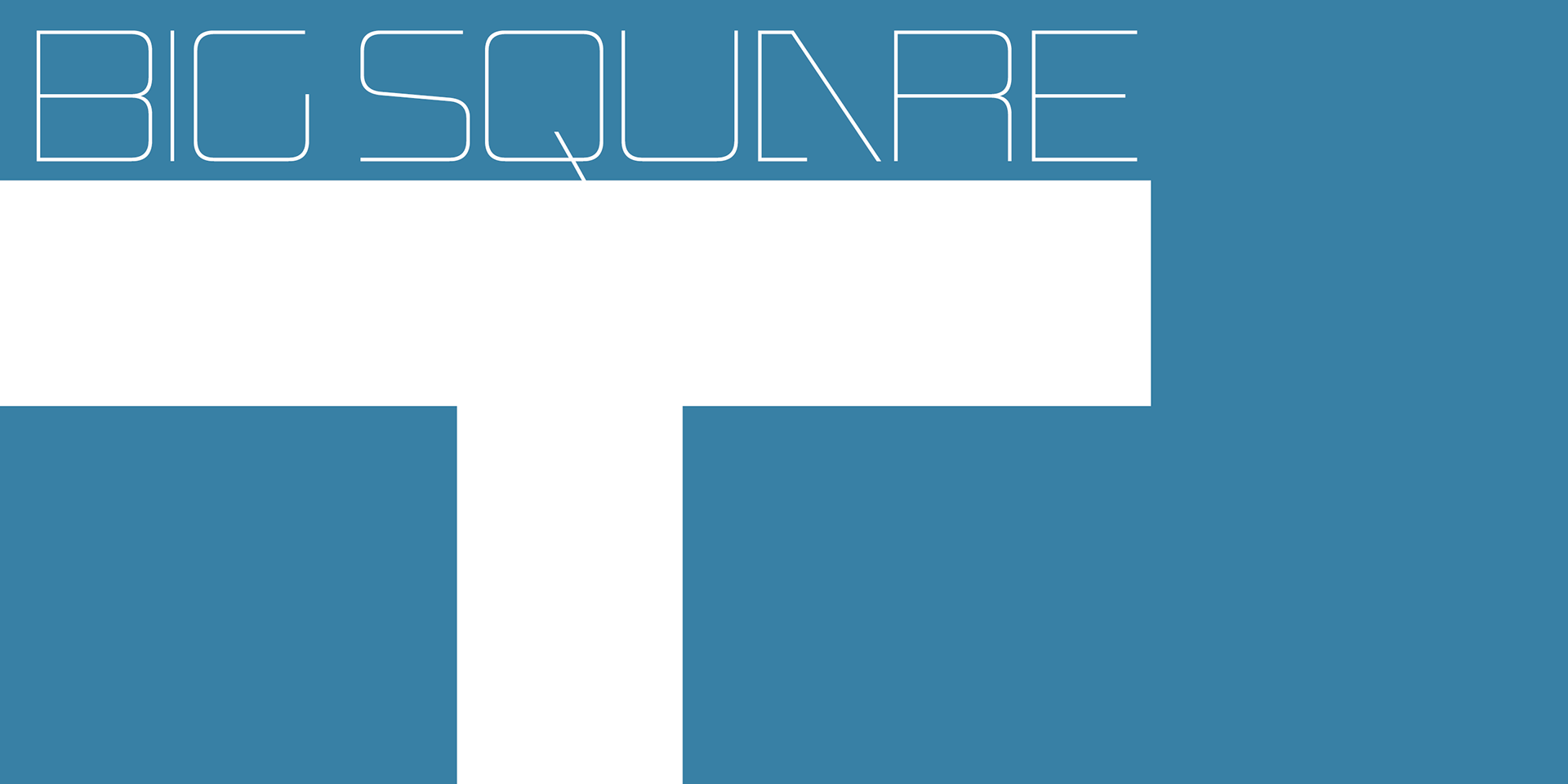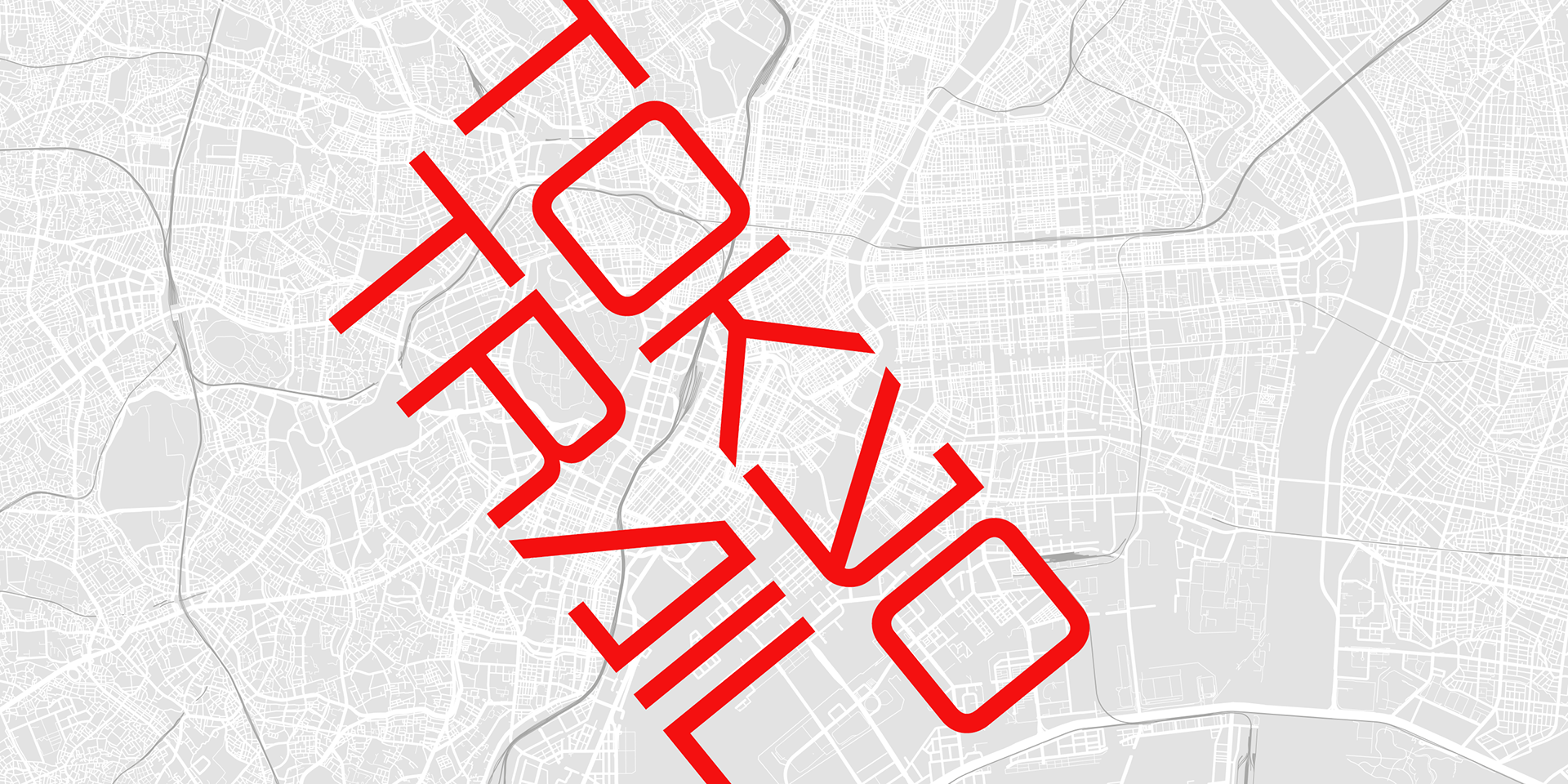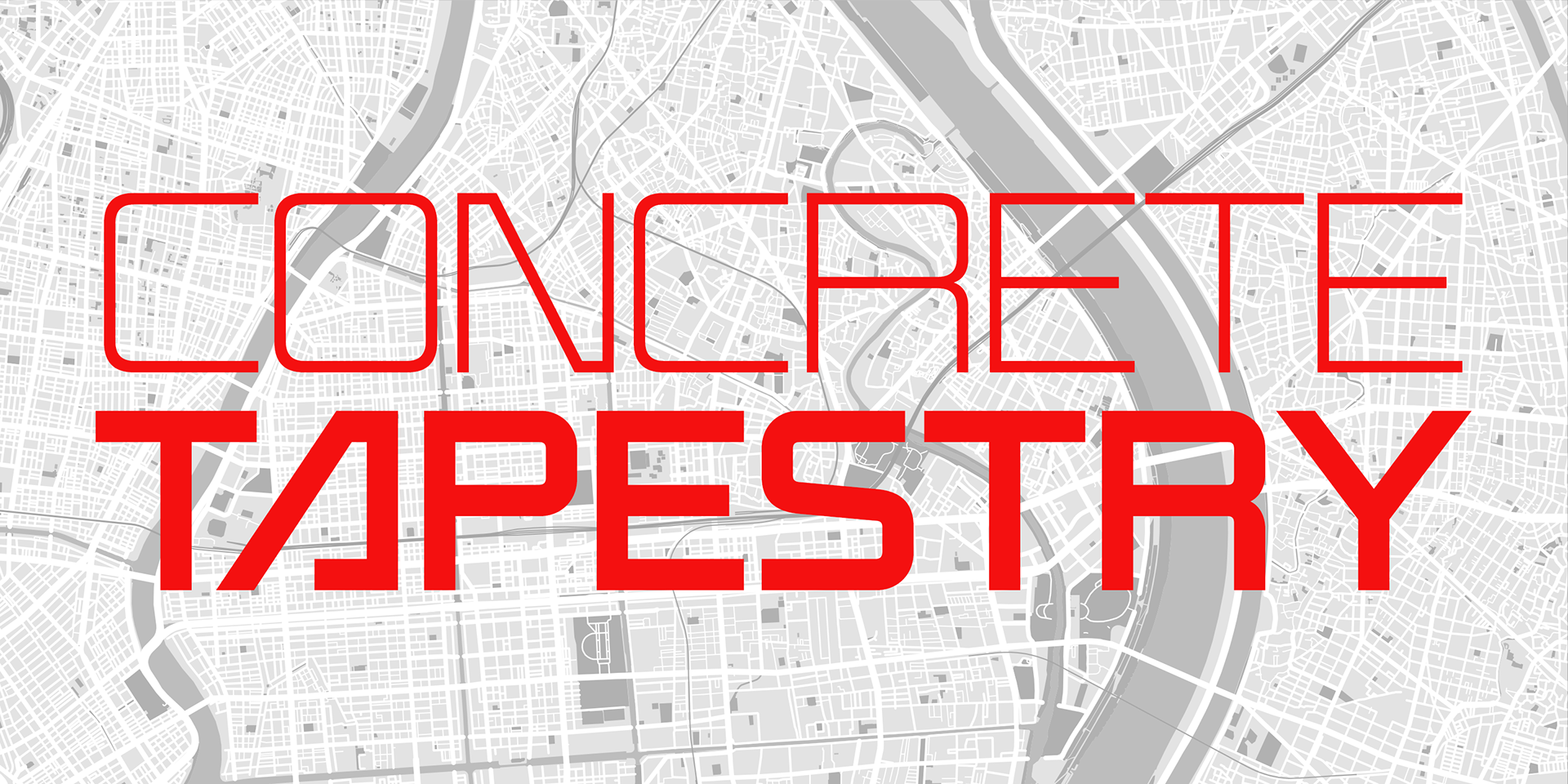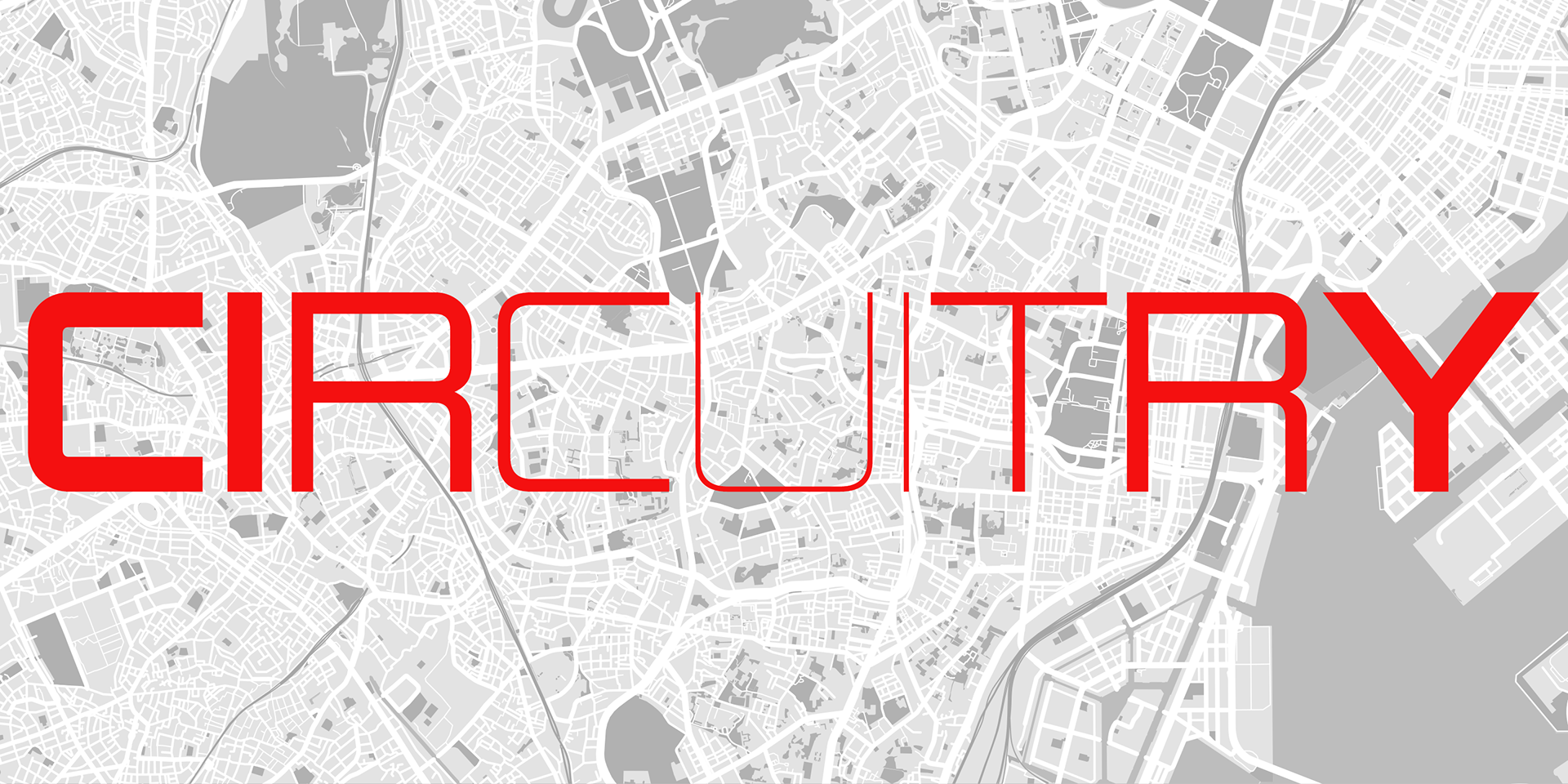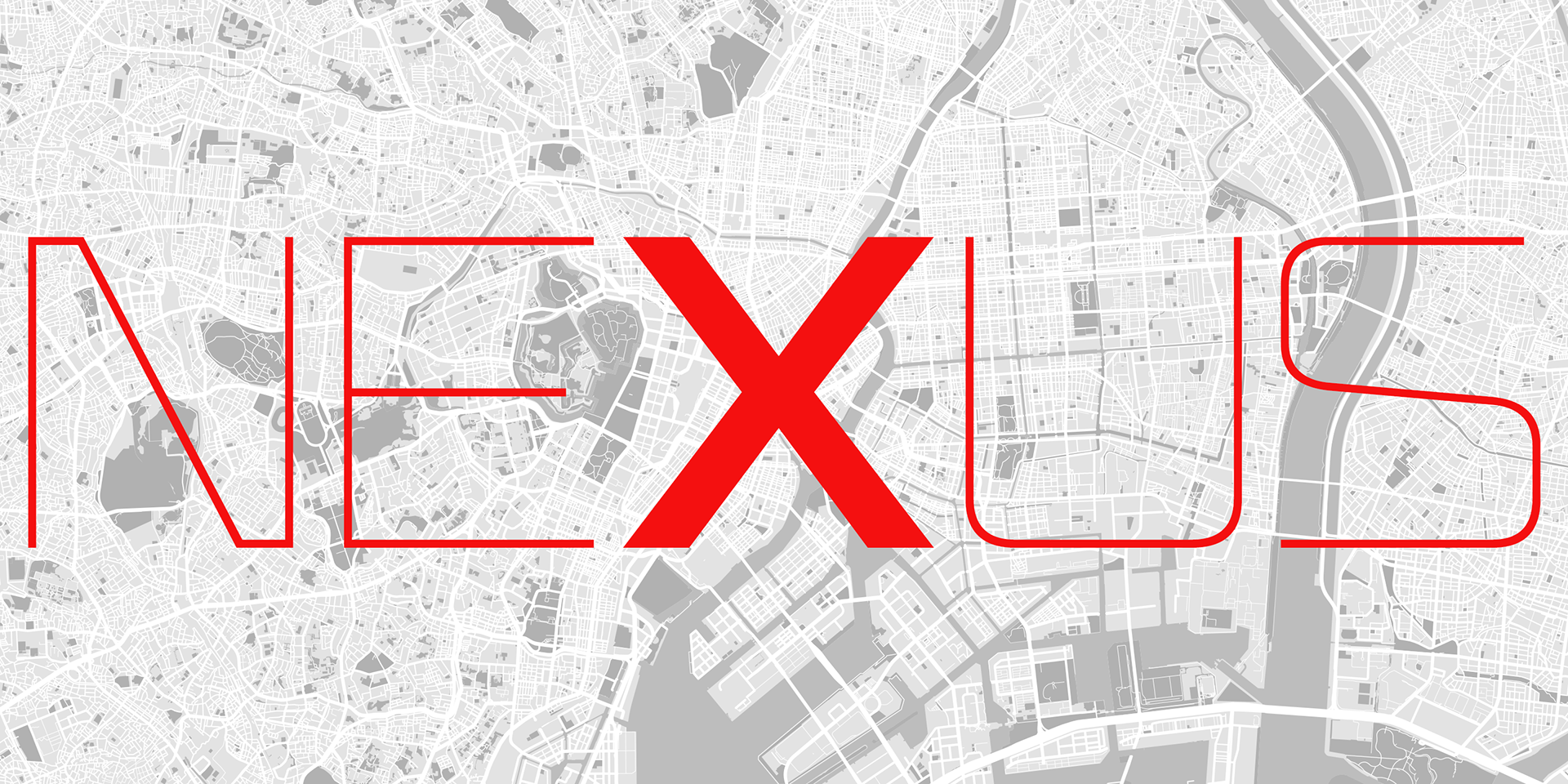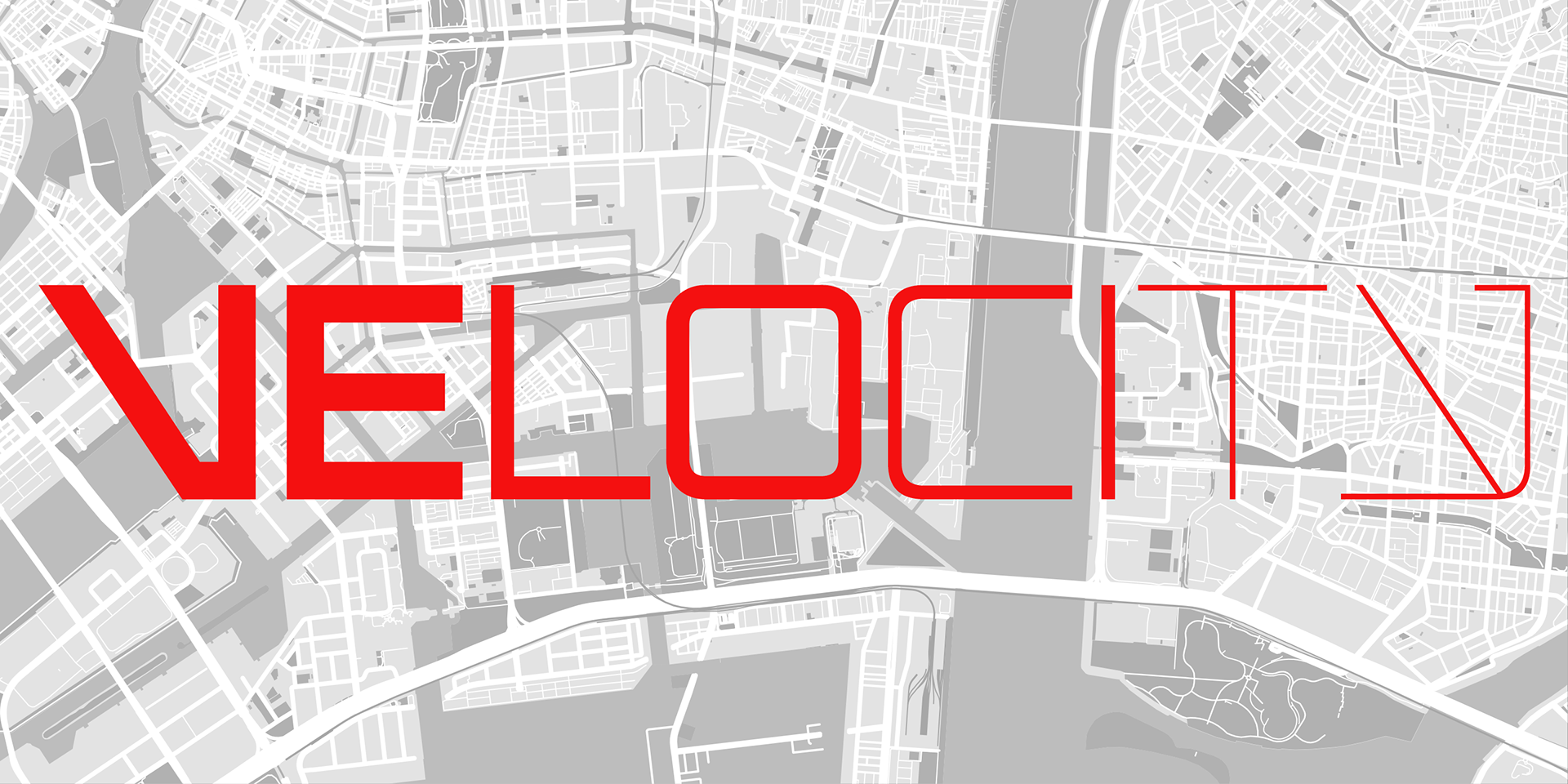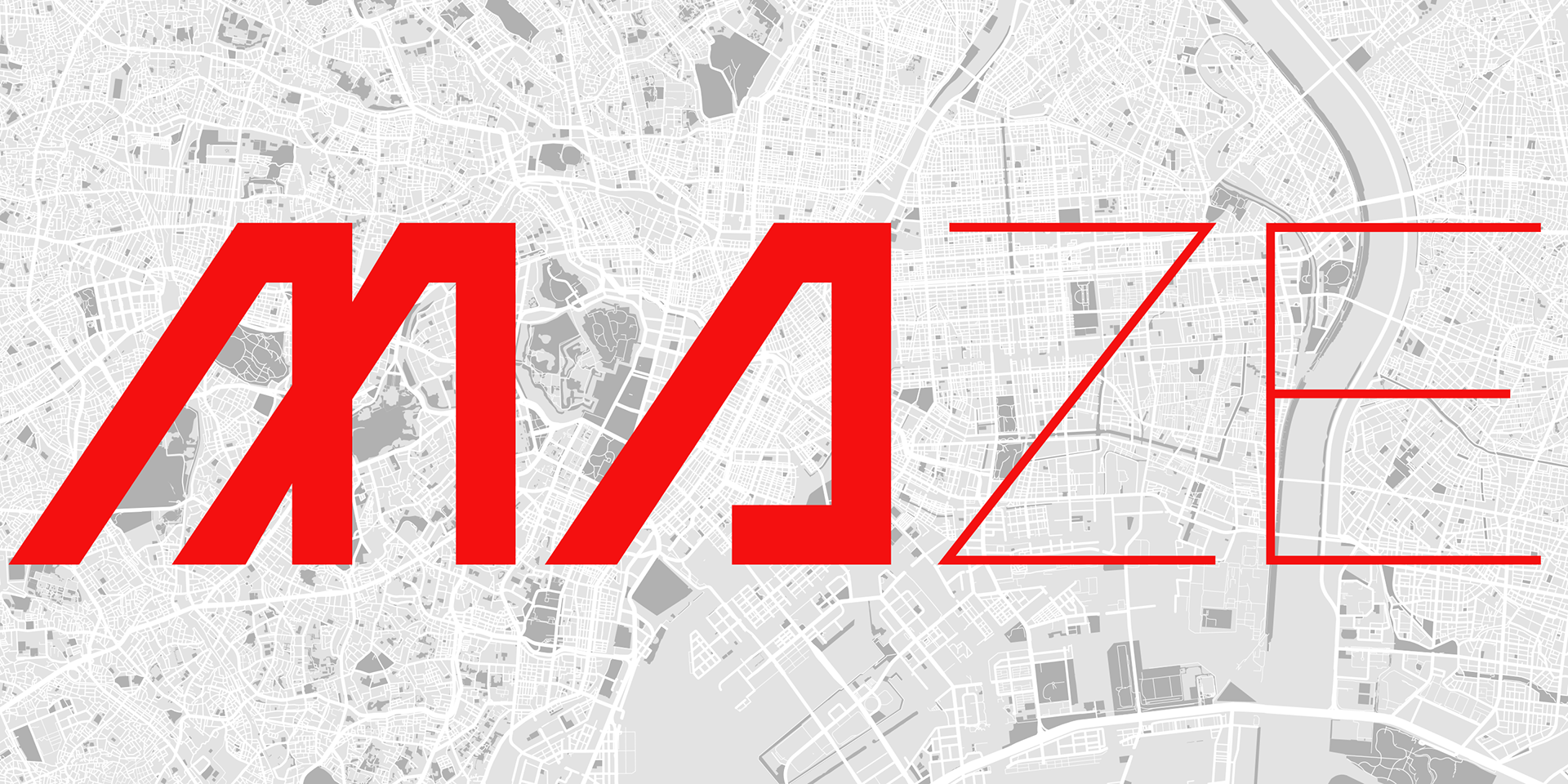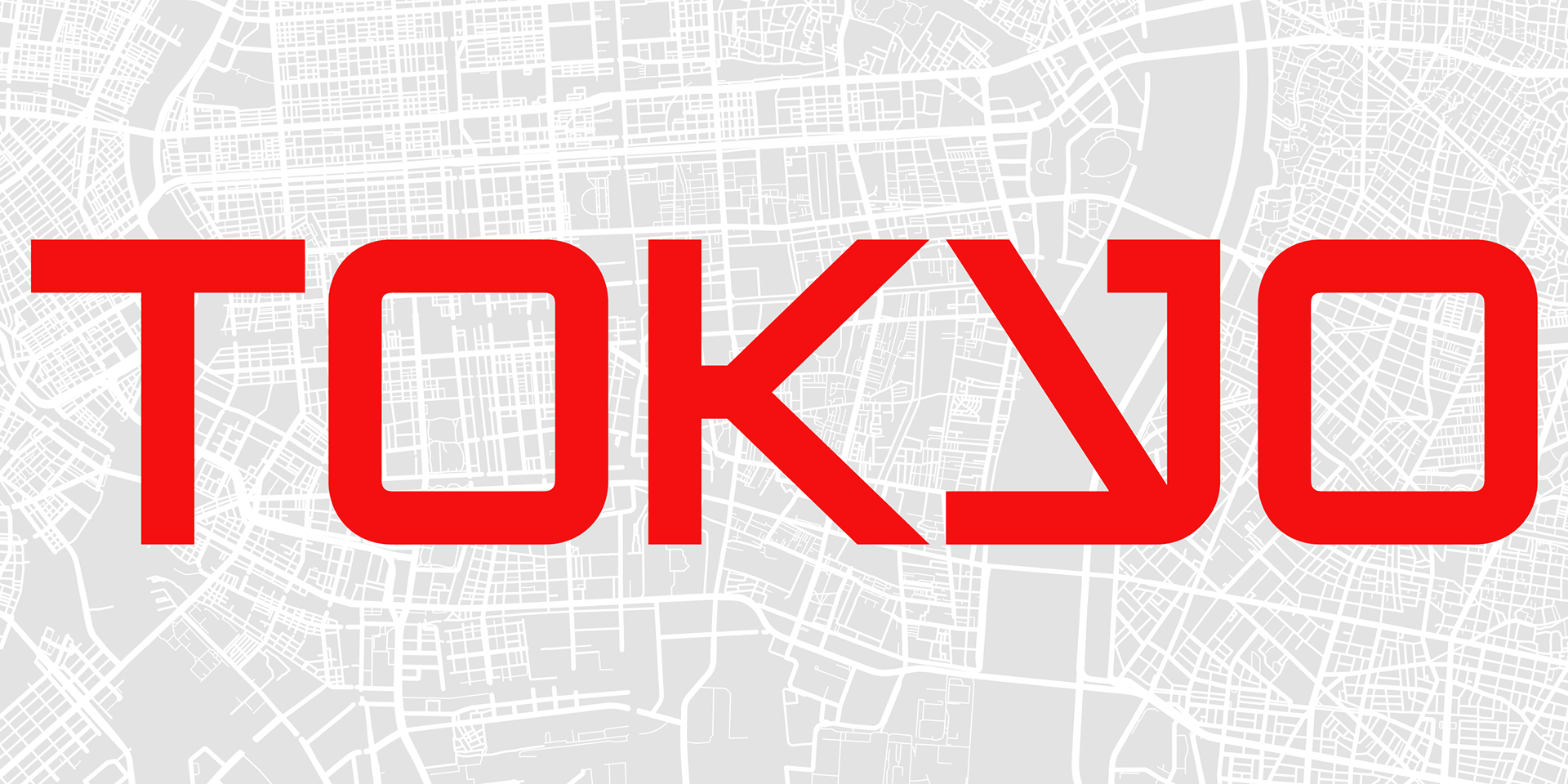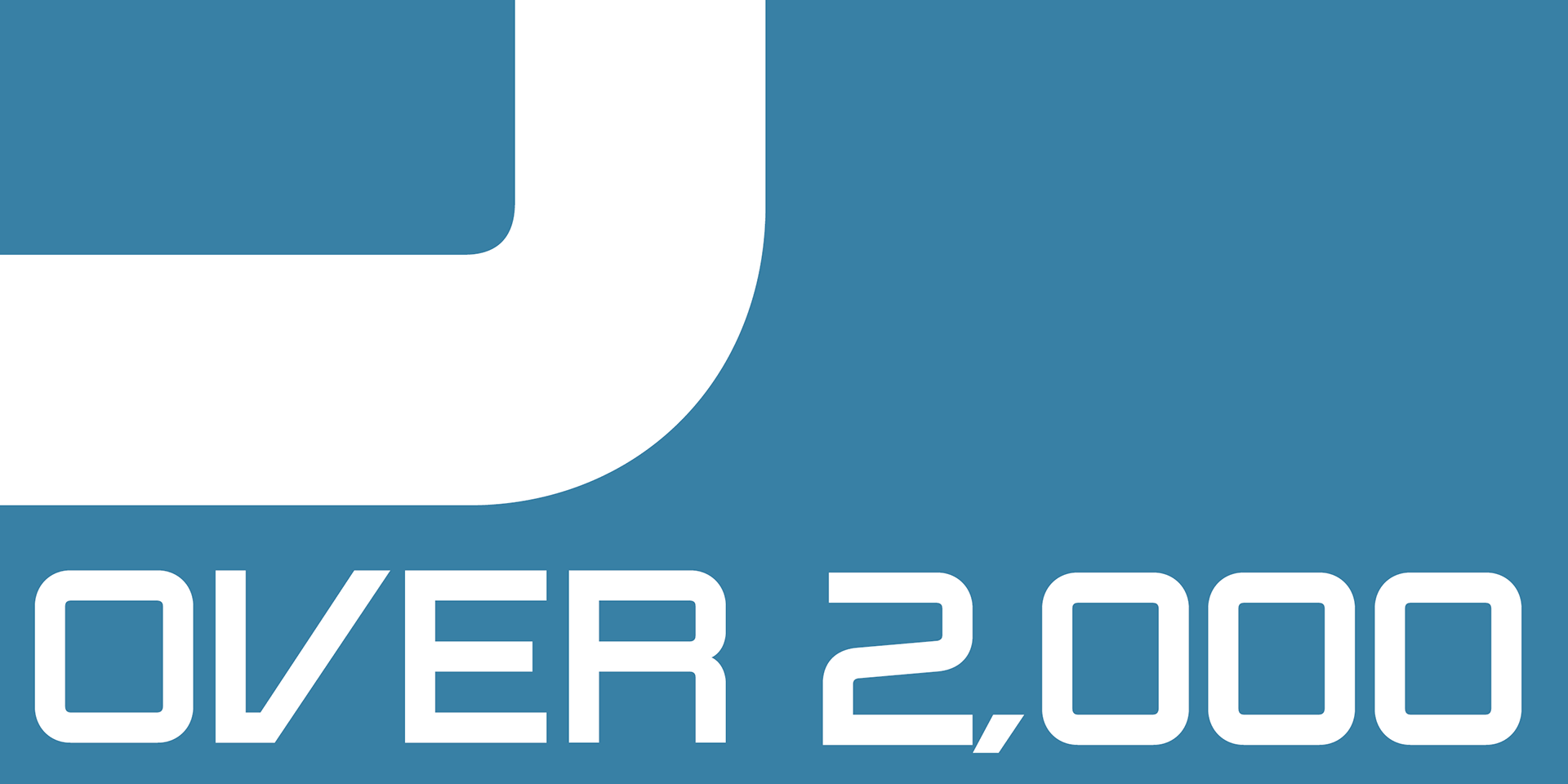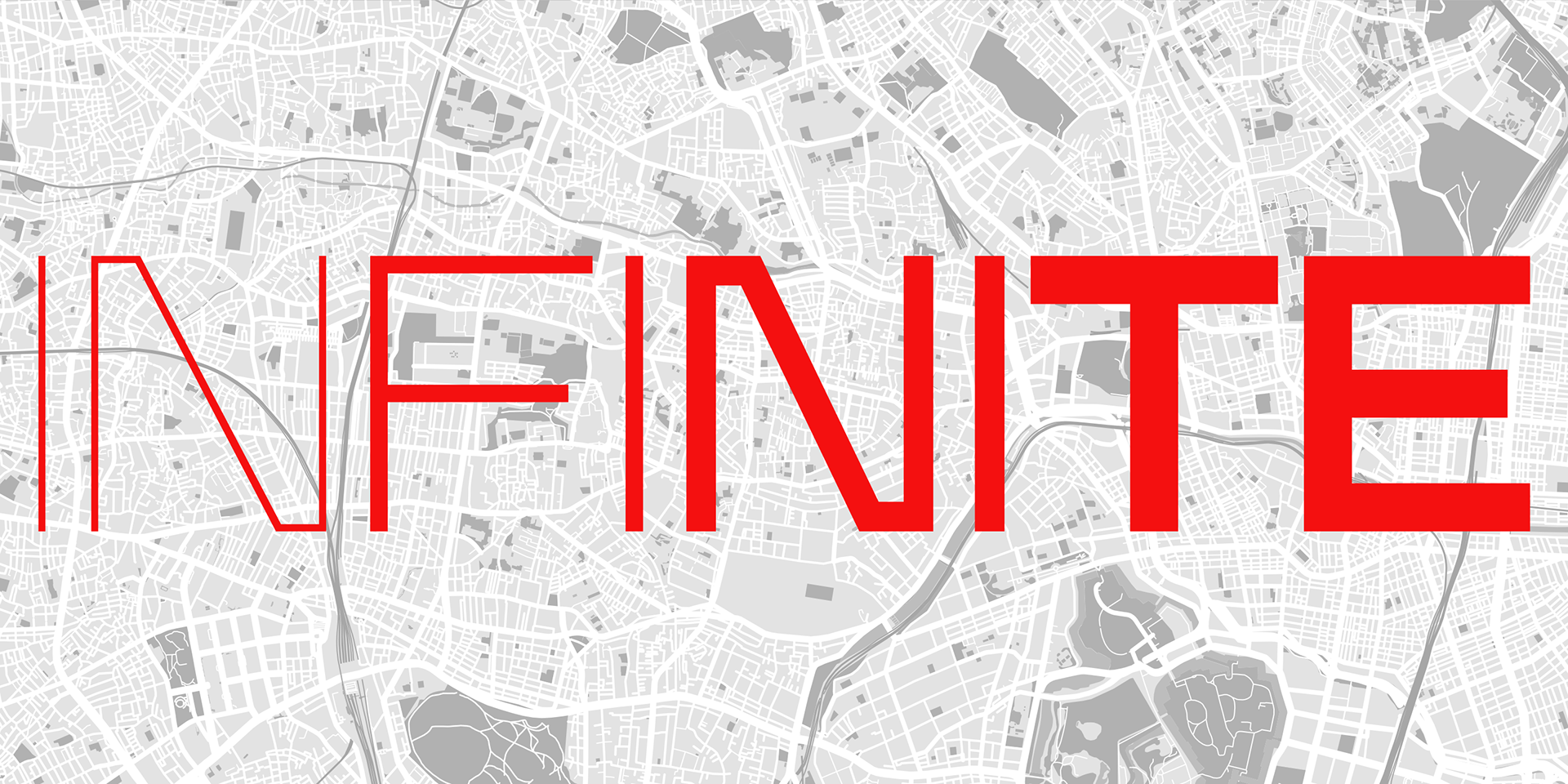
Tokyotrail
Tokyotrail is a typeface inspired by Japan’s capital city—a sprawling metropolis with over 2,000 square kilometers to explore.
Its design reflects the city’s dynamic structure, with lines running vertically, horizontally, and diagonally.
The square, geometric forms give it a striking presence, making it stand out in a variety of design contexts.